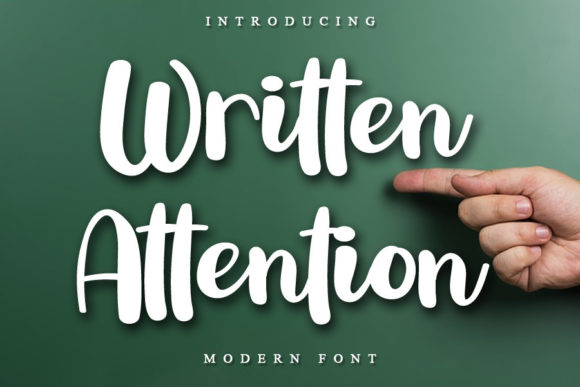
Immerse yourself in the world of elegance and sophistication with Written Attention, an exquisitely crafted script font family, conceived by the visionary ABBAsalam. This masterpiece of typography is designed to captivate and enchant, leaving an unforgettable impression on your creative endeavors.
Written Attention is not just a font; it's an artistic expression that breathes life into your words. Its graceful curves and delicate strokes evoke a sense of artistry and refinement, adding a touch of elegance to any project. Whether you're crafting logos, branding materials, labels, photography, watermarks, or seeking to elevate your special events, Written Attention is the perfect choice for discerning designers seeking a font that exudes timeless beauty.
With its effortless versatility, Written Attention seamlessly adapts to a myriad of creative projects. Its refined structure lends itself beautifully to logos, imbuing them with a sense of sophistication that sets them apart from the ordinary. Branding projects come alive with Written Attention, as its elegant lines create a cohesive and visually striking identity that commands attention.
Whether you seek to craft alluring labels that enhance your products' appeal or desire captivating watermarks to safeguard your creative works, Written Attention rises to the occasion. Its delicate charm adds a touch of individuality to photographs, transforming them into cherished memories that transcend time. Special events take on a new level of grandeur when adorned with Written Attention, its graceful presence adding an aura of sophistication and enchantment.
Written Attention is more than just a font; it's an invitation to unleash your creativity and embark on a journey of artistic expression. Its versatility and timeless appeal make it the perfect choice for designers seeking a font that captivates and inspires. Elevate your designs and leave a lasting impression with Written Attention, where beauty and elegance converge to create a truly remarkable font experience.